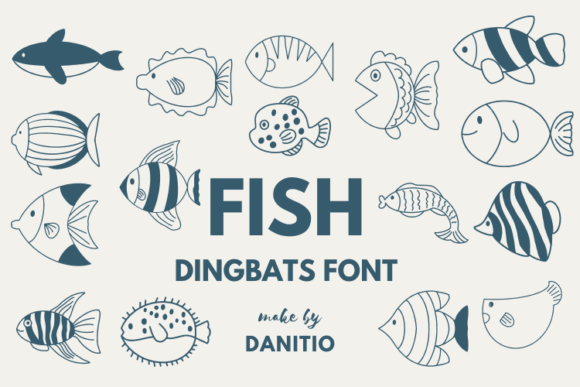
The Catch of the Day: Unleashing the Fun of Fish Font
Have you ever been brainstorming a new design project and suddenly, a burst of creativity hits you? You see a character or an object that sparks an entire concept. For designers, this moment is a treasure trove of inspiration. For me, it was a visit to a quirky aquarium that ignited the idea to dive deeper into the world of fonts.
Enter Fish Font, a charming Dingbats font that’s as playful as it is functional. With its adorable fish characters, this font is perfect for designers looking to add a dash of whimsy to their work. Whether you’re crafting digital art, presentations, or greeting cards, Fish Font is an ideal choice to make your creations stand out.
What sets Fish Font apart is its versatility. It’s not just limited to digital designs; it can also be used for merchandise like t-shirts, mugs, tote bags, and more. For designers, having access to a unique and fun font like Fish Font can be a game-changer, offering endless possibilities for creative expression.
Fish Font Key Features
- Unique Characteristics: The font features a unique, hand-drawn design with a playful and whimsical feel, perfect for creating eye-catching and engaging visual content.
Fish Font Review
As a designer, I’ve had the chance to work with a wide variety of fonts, and the “Fish Font” is one that’s certainly… unique. Here are my thoughts on what works well and what doesn’t.
- The “Fish Font” has a clear, playful vibe that’s perfect for projects where you want to convey a sense of fun and whimsy.
- The font’s irregular shape and texture give it a hand-drawn feel that’s hard to replicate with other fonts.
- The “Fish Font” is highly customizable, with a wide range of size and color options to suit your needs.
- The font’s irregular shape can make it difficult to read at smaller sizes, especially for those with visual impairments.
- The font’s playful vibe may not be suitable for all types of projects, particularly those that require a more professional tone.
- The font’s texture can be distracting in certain contexts, such as in documents or presentations where you want to focus on the content.
Overall, the “Fish Font” is a fun and creative option that’s perfect for projects where you want to add a touch of whimsy. However, it may not be the best choice for all types of projects, and its limitations should be carefully considered before using it.
Some tips for getting the most out of Fish Font include:
Using it for headings and titles to add a touch of whimsy and personality to your designs.
Pairing it with other playful fonts to create a fun and engaging visual hierarchy.
Using it for social media and marketing materials to add a touch of creativity and originality.